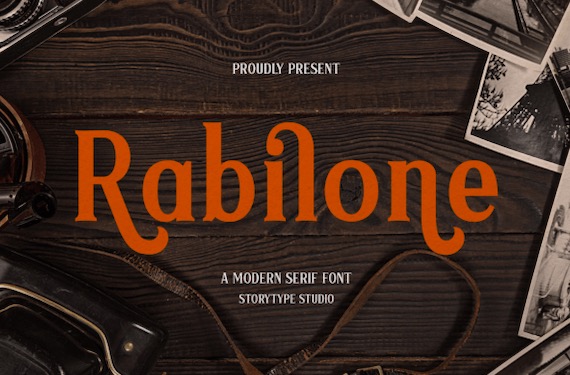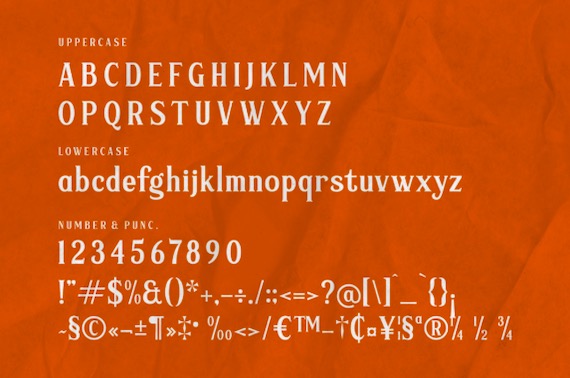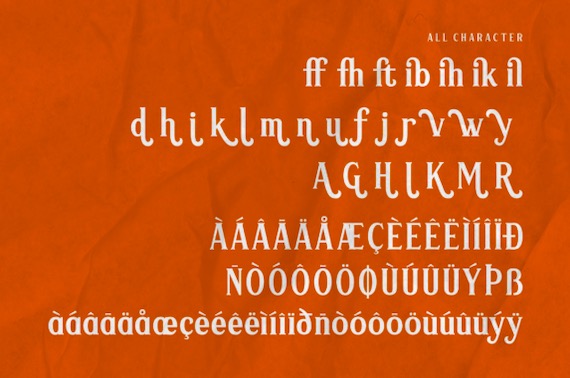
Rabilone is a stylish and luxury serif font that was created and shared by Storytype Studio along with its own unique appearance. This typeface is perfect for an elegant and luxurious logo, fashion brands, magazines, apparel, lettering, quotes, and so much more.
Rabilone Serif Font